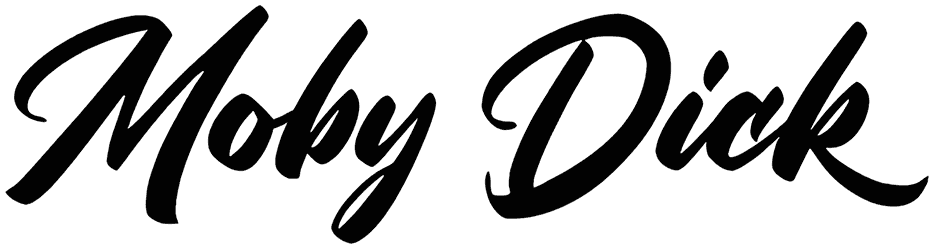
Moby Dick Font
While many graphic artists can not find a unique script font that suits any graphic content such as greeting cards, business cards, flyers, gift cards, and book covers that require a personalized handwritten touch, we offer you to utilize a magical typeface like Moby Dick to fulfill all your goals.
Since it comes with stretched and rounded characters, it leads to a sense of dreaminess, innovation, playfulness, and dynamism.